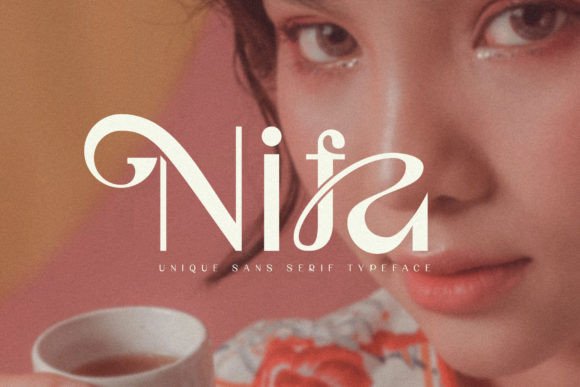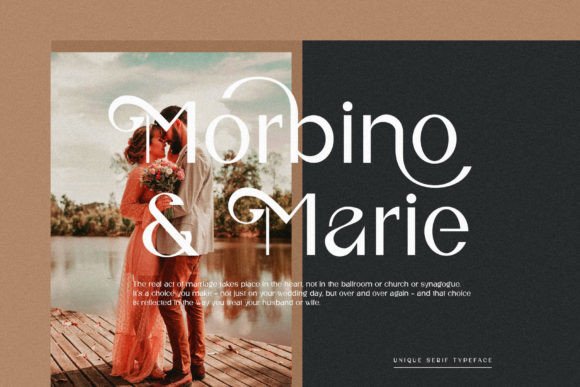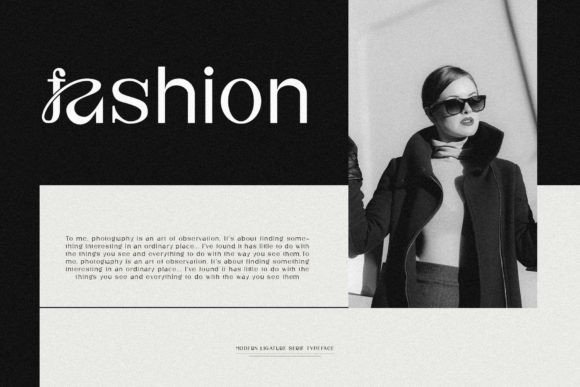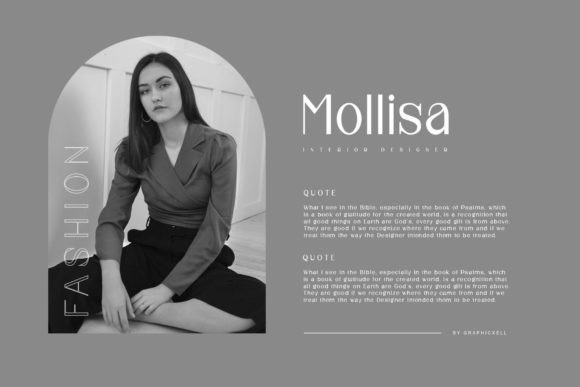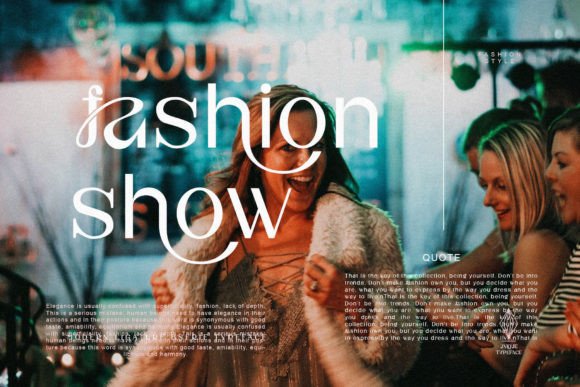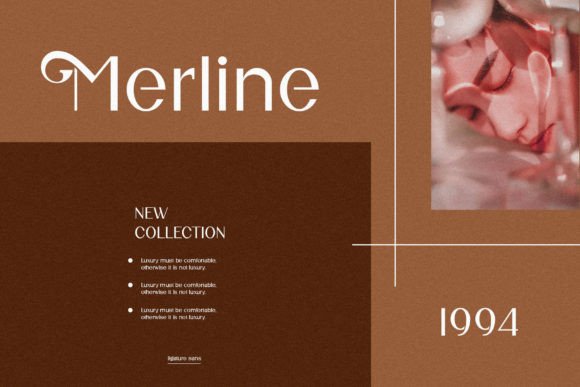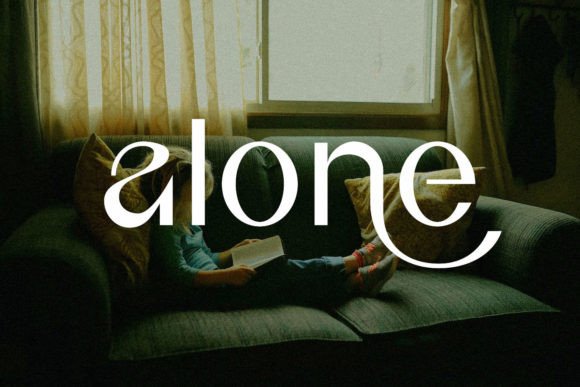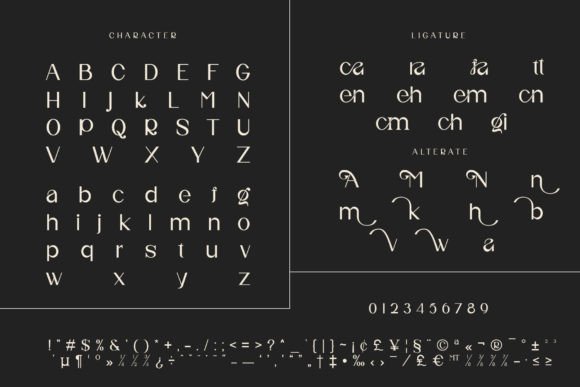
Nifa feels playfully nostalgic and delivers an incredible vintage aesthetic. Use this sans serif font to add that special retro touch to any design idea you can think of! Nifa is PUA encoded which means you can access all the glyphs and alternates with ease!